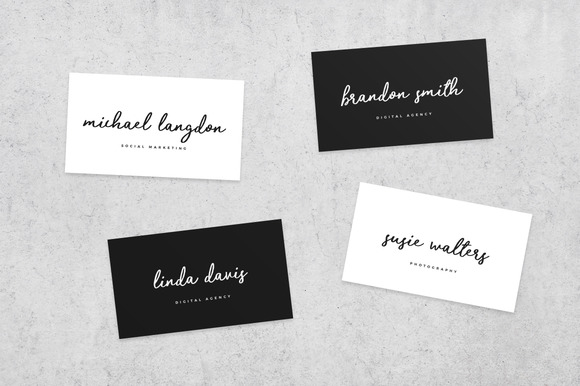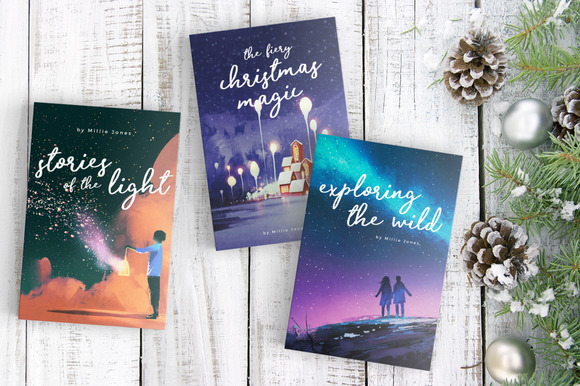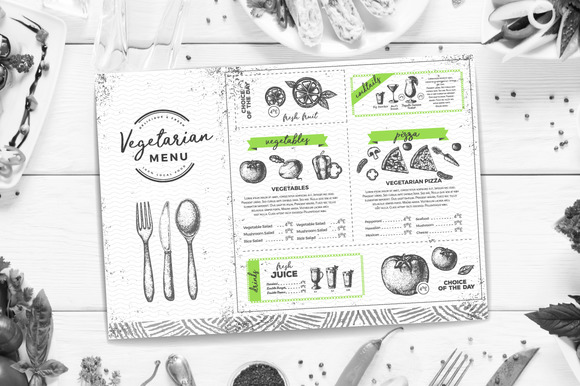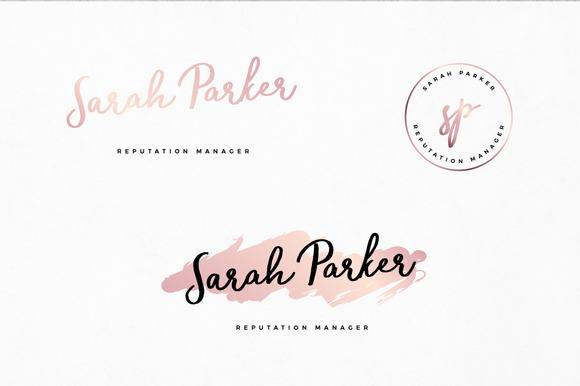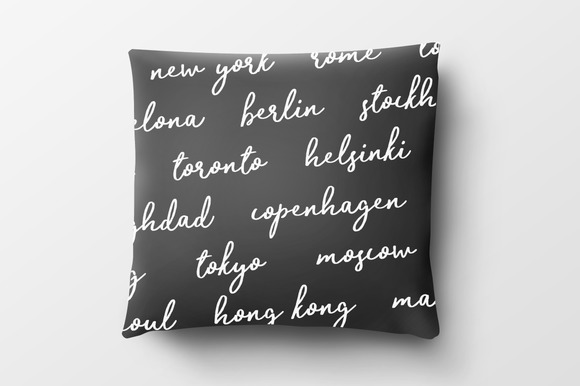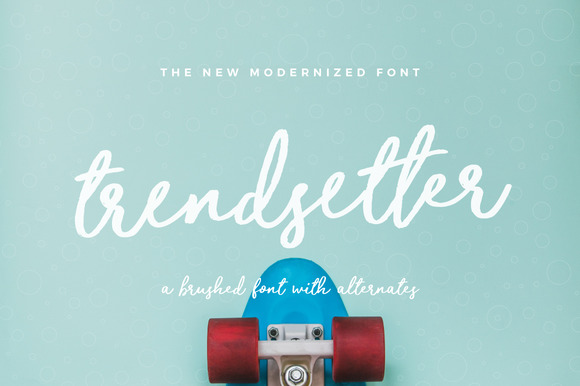
Trendsetter Font
The modernized Trendsetter is out now! It’s a well-driving font with a slightly roughened vibe. I took a deep look into modern trendy advertisements and logos while I sketched this font. The end result is smooth all the way, and the alternate characters truly gives it that extra punch to make it more personal in whatever design comes to your table!
You can use it for multiple designs like ads, sales, logos, branding, posters, social media, text overlays, well you name the rest!! 😀